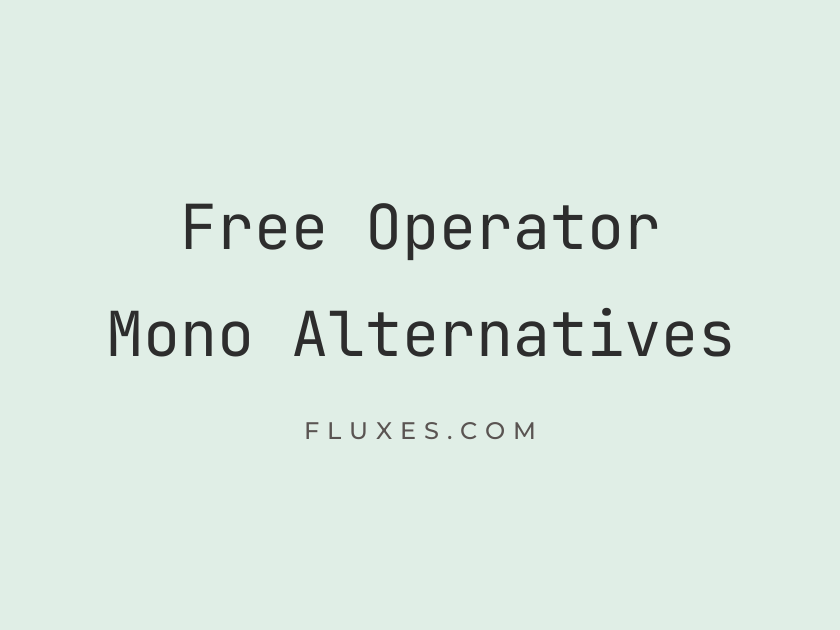
14 Best Free Fonts Alternatives to Operator Mono
Operator Mono earned its cult status in code editors for one reason above all: its elegant, semi-script italics that turn comments and keywords into something closer to handwriting than terminal output. It is also a commercial font, which sends a lot of developers and designers looking for free monospace alternatives that capture some of that same warmth without the price tag. Google Fonts has quietly built up a strong bench of coding fonts over the past several years, several of which now rival paid monospace families in both character and technical polish.
The options below lean toward fonts with genuine italic styles, since that slanted, almost cursive quality is what made Operator Mono distinctive in the first place. A few straight-upright monospace fonts are included too, for readers who care more about screen legibility and ligature support than replicating that specific italic mood.
1. JetBrains Mono
Built by a company that makes IDEs for a living, this is the most obvious starting point for anyone leaving Operator Mono behind. The letterforms are tall and open with increased height on lowercase, which keeps dense code blocks readable even at small sizes on a laptop screen. Its italic is understated rather than showy, but it holds up well in comments and docstrings, and the whole family ships with ligatures for common operators.
2. IBM Plex Mono
Plex Mono carries the same engineered, slightly technical personality as the rest of the Plex superfamily, so it pairs naturally with Plex Sans or Plex Serif in documentation and product interfaces. The italic has a bit more personality than most coding monospace fonts, with a gentle forward lean that nods toward Operator Mono without fully committing to script territory. It reads clean at small sizes, which makes it a safe default for terminals and code blocks on the web.
3. Space Mono
Space Mono trades technical neutrality for personality: quirky proportions, a slightly retro sci-fi feel, and an italic that leans hard into character rather than subtlety. It is a poor choice for dense production codebases where you need maximum legibility, but it excels in marketing sites, portfolios, and anywhere a monospace font is used decoratively rather than functionally. Think of it as the font for developers who want their About page to look like a terminal, not their actual terminal.
4. Source Code Pro
Adobe’s contribution to the free coding-font space is dependable rather than flashy. Its italic is measured and clean, closer to a typical oblique than Operator Mono’s calligraphic slant, but it renders crisply across editors, terminals, and syntax-highlighted code snippets embedded in blog posts.
5. Roboto Mono
Roboto Mono keeps the geometric, even rhythm of its sans-serif sibling, which makes it a comfortable choice for teams already using Roboto elsewhere in their brand or product. The italic is efficient and unfussy. It is not the most characterful pick on this list, but that restraint is exactly why it works so well in interface chrome, tooltips, and inline code on documentation sites.
6. Fira Mono
Fira Mono skips italics altogether, so it will not scratch the exact itch Operator Mono users are looking for, but its wide, sturdy letterforms and generous spacing make it one of the most legible free monospace fonts for long reading sessions. It was designed as part of Mozilla’s Fira family, and that heritage shows in how well it holds up in dense terminal output.
7. Inconsolata
One of the earliest breakout stars of the free coding-font world, Inconsolata still holds its own more than fifteen years later. Its narrow, humanist letterforms conserve horizontal space without feeling cramped, which is part of why it became a default choice in so many early code editor themes. There is no italic in the Google Fonts release, so pair it with a script or oblique display face if you need contrast for comments.
8. Cousine
Cousine was built as a metrically compatible alternative to a certain ubiquitous system monospace font, and that heritage gives it a familiar, slightly conservative rhythm. Its italic is subdued but functional, useful for teams that want a coding font that won’t call attention to itself in shared documentation or printed style guides.
9. Anonymous Pro
Always test any coding font at the actual size you will use in your editor or terminal; character spacing and italic slant can look very different at 12px than in a specimen at 40px.